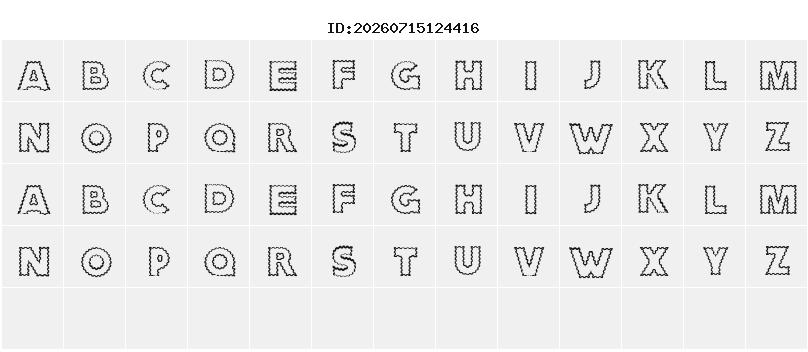
ZagzagCaps Preview
• Font Name: ZagzagCaps
About ZagzagCaps.ttf
ZagzagCaps.ttf is a modern, elegant sans-serif font designed for ultimate readability and visual harmony. Perfect for branding, headlines, web design, and print materials.